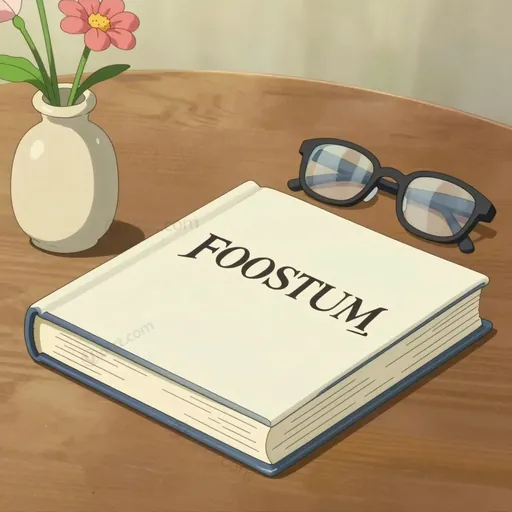
old style font
Definition
Noun: A category of typeface design originating from the 18th century, characterized by its relatively low contrast between thick and thin strokes, and by its bracketed serifs where the serifs on ascending letters (like 'b', 'd', 'h') are often slanted.
Usage
This term is used specifically in typography, graphic design, and printing to classify and describe a particular historical style of letterforms. * The body text of the classic novel was set in an old style font. * For a traditional and readable look, designers often choose an old style font like Garamond or Caslon. * The key difference between an old style font and a modern serif font is the angle of the stress in the letterforms.
Advanced Usage
- Digital Typography: In modern digital type libraries, 'Old Style' is a standard classification filter, grouping typefaces like Bembo, Janson, and Palatino under this historical category.
- Distinction from Other Serifs: The term is used to contrast with other serif classifications such as 'Transitional' (e.g., Times New Roman) and 'Modern' or 'Didone' (e.g., Bodoni), which have higher stroke contrast and vertical, unbracketed serifs.
Variants and Related Words
- Old Style (noun, often used adjectivally): A shorter, common form of the term.
- The designer specified an Old Style typeface for the project.
- Humanist Serif: A related, sometimes overlapping classification emphasizing calligraphic influences, often including Old Style fonts.
- Garalde: Another term used in some classification systems (combining the names Garamond and Aldus) to describe this category.
Synonyms
- Humanist Serif (in some type classification systems)
- Garalde (a more technical synonym)
Antonyms
- Modern Serif
- Didone
- Sans-serif Font
- Geometric Sans
Noun
- a typeface (based on an 18th century design) distinguished by irregularity and slanted ascender serifs and little contrast between light and heavy strokes